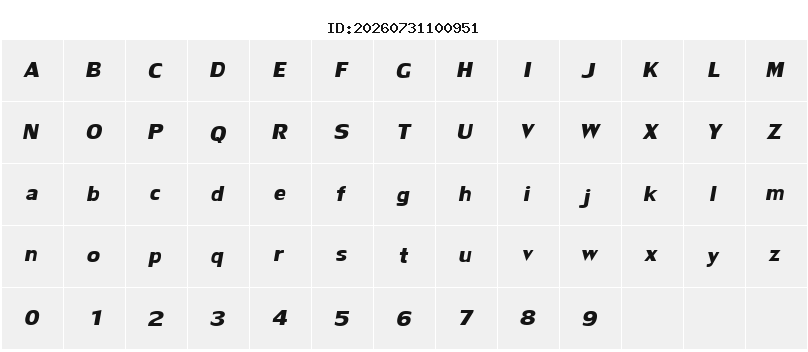
• Font Name: LilyDSE
LilyDSE.ttf is a modern, elegant sans-serif font designed for ultimate readability and visual harmony. Perfect for branding, headlines, web design, and print materials.